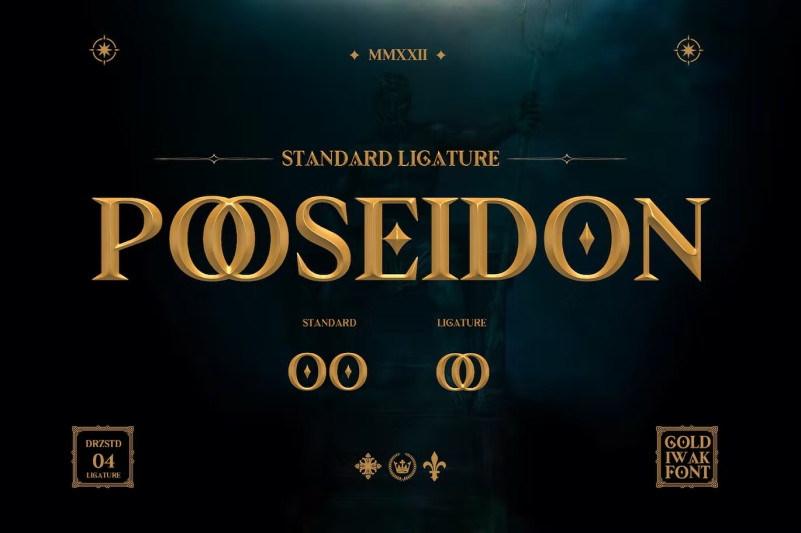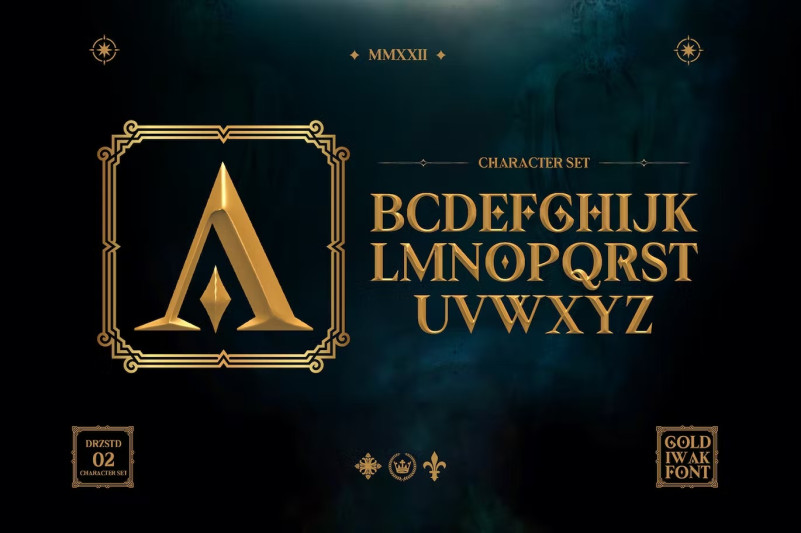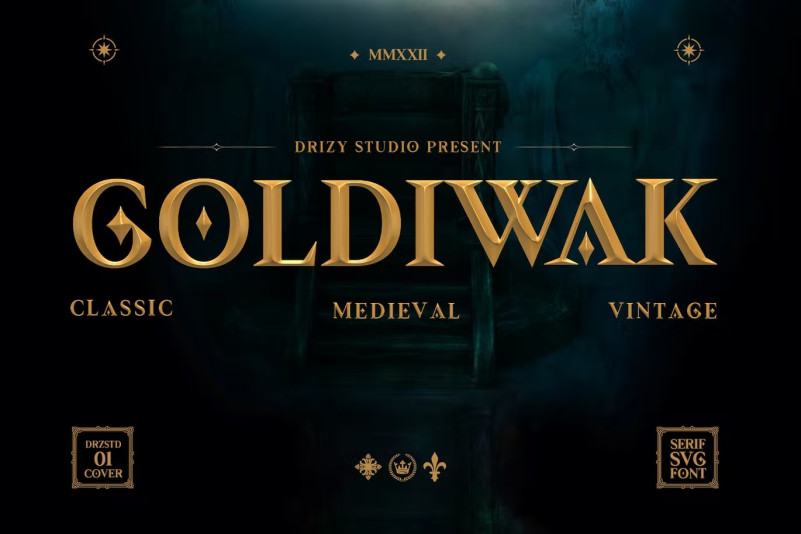
Goldiwak – Classic Medieval Font
Goldiwak is a Classic Medieval Font from Drizy studio. Offering all the basic styles you will need especially medieval and classic theme project.